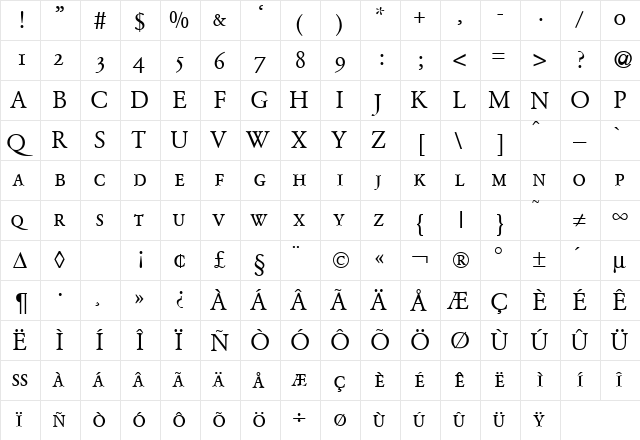
ClassicGaramondSmcOsf Regular
Design Context for ClassicGaramondSmcOsf Typeface
ClassicGaramondSmcOsf has the warm character of retro typography — evoking diners, record sleeves, and the golden age of print advertising.
Ideal for diner signage, record shop branding, 70s/80s-themed projects, and heritage product labels.
Font Pairing: Combine ClassicGaramondSmcOsf with a simple slab or neutral sans — period-accurate companions reinforce the vintage feel without competing for attention.
Pro Tip: Lean into ClassicGaramondSmcOsf's period character by pairing it with aged paper textures, muted colour palettes, and vintage illustration styles.